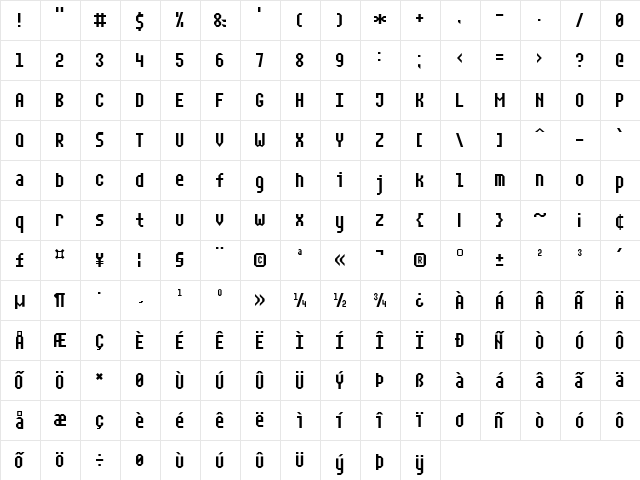
Narrow Rectangle-7 Regular
| Foundry | Style-7 |
| Designer | Sizenko Alexander |
Design Context for Narrow Rectangle-7 Typeface
Narrow Rectangle-7 is a composed and adaptable typeface that performs quietly and consistently across a wide range of design contexts. Its narrow stance lets it pack a punch even in space-constrained designs.